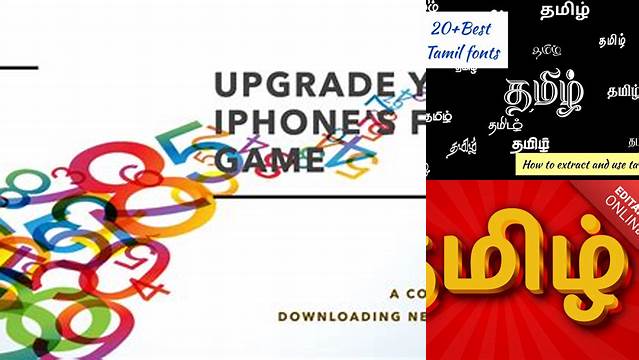
Install Tamil Fonts On IPhone: A Quick Guide
Have you ever wanted to read or type in Tamil on your iPhone? Maybe you're a Tamil speaker, learning the language, or just appreciate the beauty of the script. Whatever your reason, getting Tamil fonts on your iPhone is totally doable, and this guide is here to walk you through it! Let's dive in and make your iPhone Tamil-friendly.
1. Why Add Tamil Fonts to Your iPhone?
Before we jump into the how, let's quickly chat about the why. Getting Tamil fonts on your iPhone opens up a world of possibilities. You can read Tamil news, communicate with friends and family in their native language, and even use Tamil in your creative projects. Plus, it's a great way to stay connected to your culture and heritage. Adding Tamil fonts enhances your iPhone's versatility and makes it a more personalized device. Imagine being able to effortlessly read Tamil books or engage in meaningful conversations with loved ones in their preferred language. The ability to type and view Tamil script seamlessly integrates your iPhone into your daily life, fostering a deeper connection with the Tamil-speaking world. The benefits extend beyond personal use; professionals can leverage Tamil fonts for business communications, academic research, and content creation, making their work more accessible to a wider audience.
7. Finding Free Tamil Fonts Online
If you're on a budget, there are many websites where you can find free Tamil fonts. Just be careful to download fonts from reputable sources to avoid viruses or malware. Once you've downloaded a font, you'll need to install it on your computer and then transfer it to your iPhone using a file-sharing app or cloud service. However, this method is a bit more technical and might not work for all apps. Exploring free font resources can be a cost-effective way to expand your font collection. However, it's essential to exercise caution and prioritize your device's security. Always download fonts from trusted websites and scan the files for viruses before transferring them to your iPhone. Consider using reputable font repositories or design communities that curate high-quality free fonts. Be aware that some free fonts may have licensing restrictions, so ensure that you comply with the terms of use.
8. Exploring Tamil Font Styles: Serif vs. Sans-Serif
Tamil fonts, like any other language, come in different styles. Serif fonts have small decorative strokes at the end of each letter, while sans-serif fonts have a cleaner, more modern look. Experiment with both to see which one you prefer. Serif fonts are often used for body text because they're easier to read in large blocks, while sans-serif fonts are great for headings and titles. Understanding the characteristics of different font styles can enhance your design choices and improve the readability of your content. Serif fonts, with their traditional appearance, evoke a sense of formality and elegance. Sans-serif fonts, on the other hand, convey a more contemporary and minimalist aesthetic. Consider the context and purpose of your content when selecting a font style. For example, a formal document might benefit from a serif font, while a modern website might look better with a sans-serif font.
9. Adjusting Font Size for Better Readability
Sometimes, the default font size might not be ideal for reading Tamil text. You can adjust the font size in your iPhone's settings to make it more comfortable for your eyes. Go to Settings > Accessibility > Display & Text Size and adjust the Larger Text slider. You can also make the text bold for even better readability. Adjusting the font size is a simple yet effective way to improve your reading experience. Experiment with different font sizes to find the one that minimizes eye strain and maximizes comprehension. Consider the lighting conditions and screen brightness when adjusting the font size. In low-light environments, a slightly larger font size may be more comfortable to read. You can also adjust the font size within specific apps to customize your reading experience further.
So there you have it! Getting Tamil fonts on your iPhone is easier than you think. Whether you choose to stick with the default options or explore third-party apps, you'll be able to read and write in Tamil in no time. Happy typing, folks!